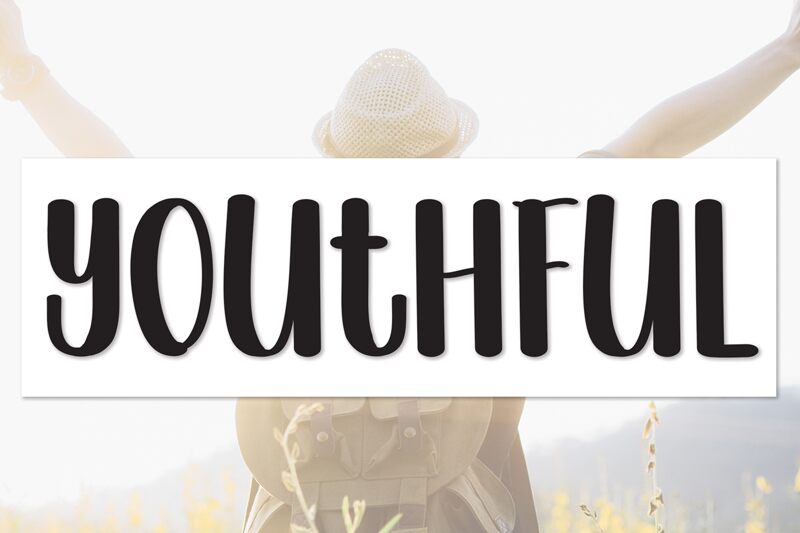
Youthful
Youthful, designed by Scratchones, captures the exuberance and spontaneity of handwritten script with a modern twist. Its bold strokes and playful curves evoke a sense of freedom and creativity, making it feel personal and approachable. The font's dynamic flow appears to dance across the page, infusing designs with a fresh, energetic vibe.
Ideal for projects that require an informal yet stylish touch, Youthful is perfectly suited for branding initiatives, social media graphics, and any context where a human touch is desired. Whether it's to inject personality into invitations or to add charm to inspirational quotes, this font's inviting character ensures it stands out in various design landscapes.